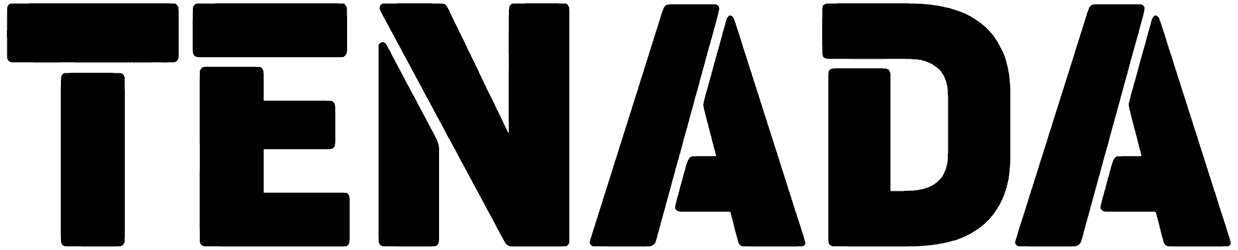
Tenada Font
Let us guess, looking for sth modern enough to match the contemporary vibes of your brand and convey it distinctively? Then we have some great news for you, Tenada has just become available for download, and you couldn’t have been any luckier to get here on time.
We can already tell how much you’re gonna love having this stencil font as the face of your company if what you do is lead the marketing team, provide internet access and security, etc.
TENADA font is a modern style font with a stencil design.